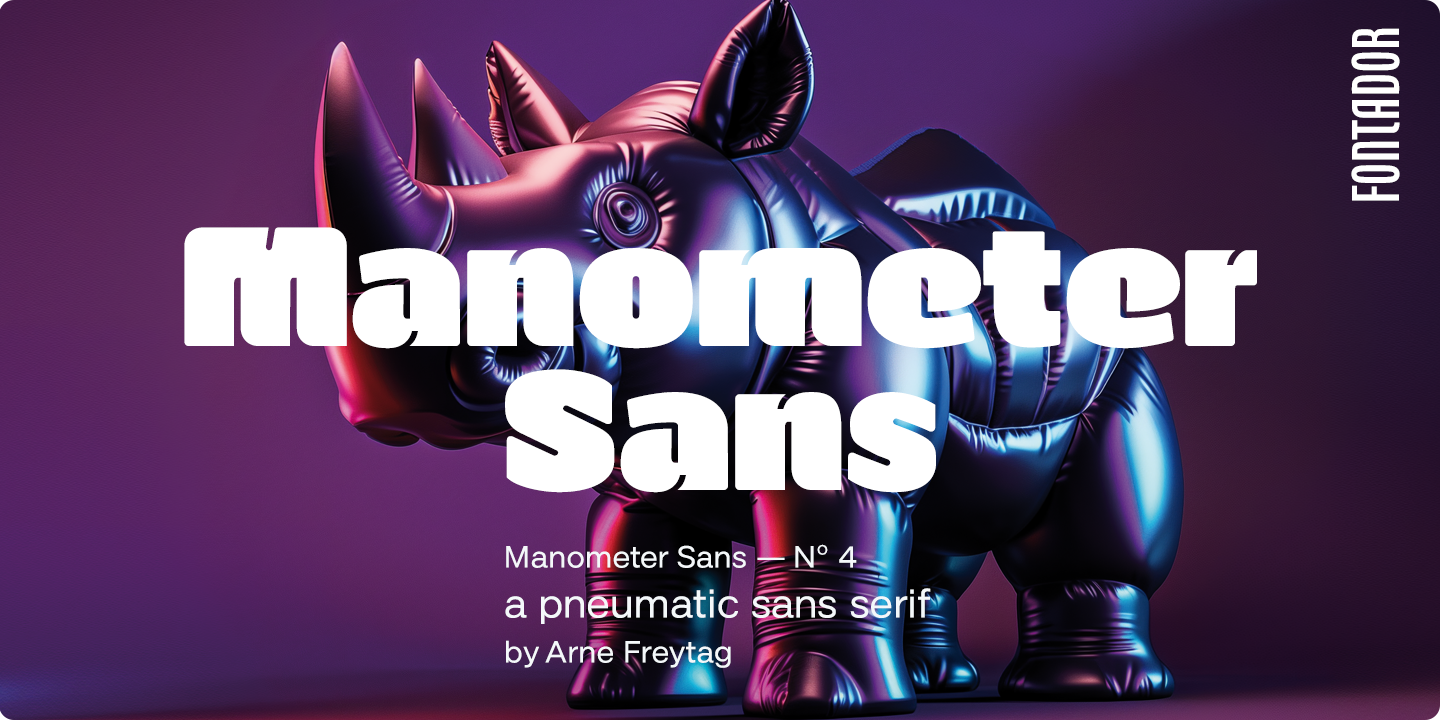
Manometer Sans Font is perfect for engineering firm branding, technical documentation, industrial equipment manuals, scientific research publications, measurement device interfaces, construction company logos, manufacturing process displays, automotive industry materials, precision instrument packaging, and professional calibration certificates. This precise typeface brings technical accuracy and industrial reliability to any design project requiring scientific credibility and engineering excellence.
Manometer Sans Font is exciting because it embodies the precision and reliability of professional measurement instruments through its meticulously crafted letterforms and systematic design approach. The font's clean geometry and technical character communicate accuracy, dependability, and scientific rigor, making it ideal for brands that want to establish trust and expertise in technical and industrial markets.
Manometer Sans Font family includes multiple weights and styles: Regular, Bold, Light, Medium, Black, Condensed, Extended, Mono, Technical, and Display variants. Each style maintains the distinctive precision-focused character while providing comprehensive typographic solutions for complex technical documentation and industrial branding systems requiring exceptional clarity and professional presentation.
Whether you're designing for engineering companies, scientific institutions, or industrial manufacturers, Manometer Sans Font Free Download delivers the technical precision that communicates expertise and reliability to professional audiences. This systematic typeface combines scientific accuracy with contemporary functionality, making it invaluable for projects demanding both technical credibility and visual clarity. The font's measured approach ensures optimal performance in technical environments.